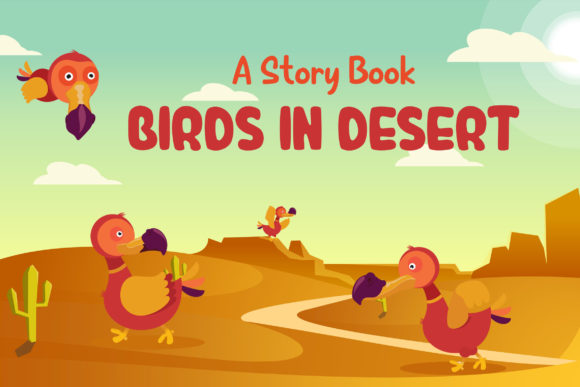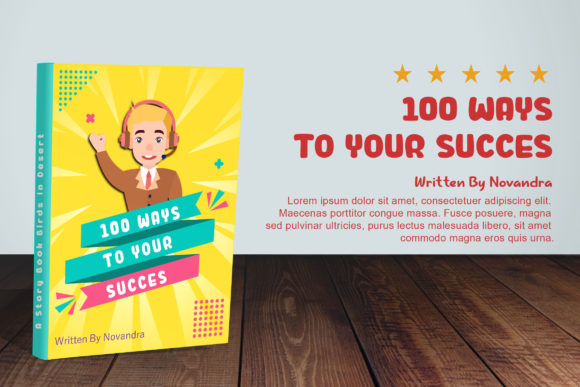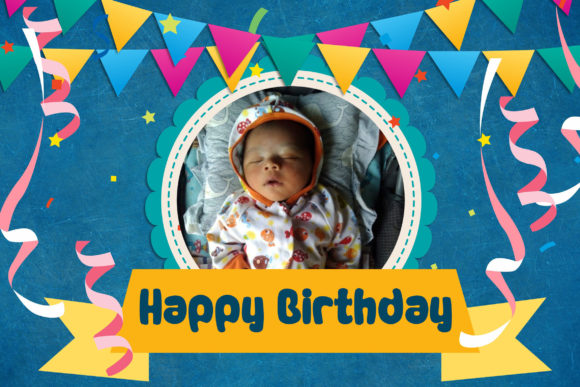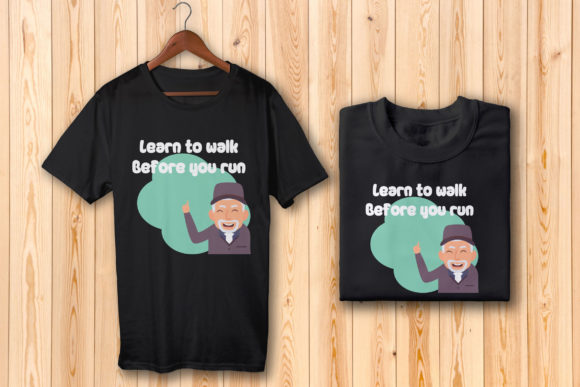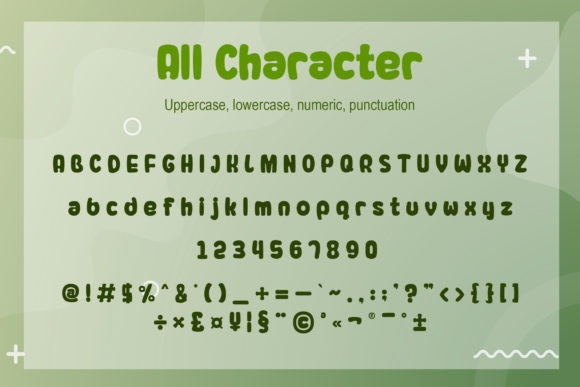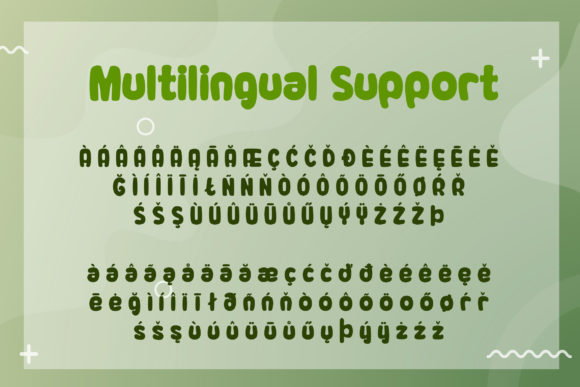
The Perfect Match for Your Next Creative Project
Have you ever stared at a blank page, eager to bring your next idea to life, but struggled to find the right words to express it? You’re not alone. Sometimes, all it takes is the right font to set the tone and bring your creation to the next level.
Enter Bo Child Font, a cool and bubbly display font that’s sure to be the perfect companion for your next project. Whether you’re designing a fun and playful ad, a quirky social media post, or a beautiful wedding invitation, Bo Child Font has the potential to elevate your creation and make it truly unforgettable.
This valuable asset to your fonts’ library is a must-have for any designer looking to add a touch of personality to their work. With its unique and playful style, Bo Child Font is the perfect way to make your projects stand out and leave a lasting impression.
Bo Child Font Key Features
- Unique Characteristics: This font features a playful, childlike design with rounded edges and soft lines, making it perfect for creating a friendly and approachable atmosphere in branding, advertising, and digital design.
Bo Child Font Review
Overall, the Bo Child font is a solid addition to any designer’s toolkit. It’s a playful, whimsical font that’s perfect for projects that require a bit of whimsy and personality. ✨ I love the way the font curves and flows, making it a great choice for titles and headings. The font also has a nice balance of bold and light weights, making it versatile for a range of design applications.
One of the things I appreciate most about Bo Child is its legibility. ✨ The font is clear and easy to read, even at smaller font sizes. This makes it a great choice for body text, as well as for display headings. The font also has a nice feel to it, with a warm and friendly vibe that’s sure to engage readers.
- ⚠️ Limited language support: Bo Child may not be optimized for non-Latin languages, which could limit its use in certain design projects.
- ⚠️ Not ideal for formal or professional designs: Bo Child’s playful, whimsical nature makes it better suited for informal or creative projects, rather than formal or professional designs.
Overall, I think Bo Child is a great font that’s worth considering for your next design project. With its playful personality, clear legibility, and versatility, it’s a great choice for designers looking to add a bit of whimsy and fun to their work.
The Bo Child Font is ideal for creating playful, child-friendly designs, such as:
- Children’s book covers and illustrations
- Education materials and worksheets
To get the most out of the Bo Child Font, try the following:
- Pair it with bold, colorful graphics and illustrations.
- Use it for headings and titles to add a playful touch.